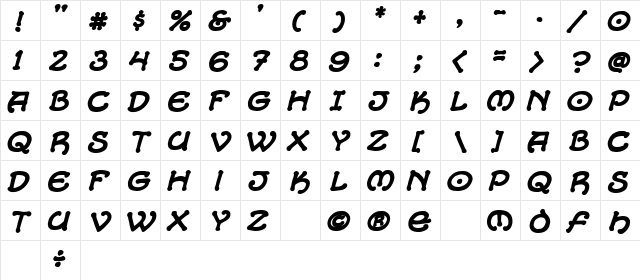
CCAlchemite BoldItalic Font Preview
CCAlchemite BoldItalic
CCAlchemite BoldItalic Font Details
Design Context for CCAlchemite Typeface
CCAlchemite is a composed and adaptable typeface that performs quietly and consistently across a wide range of design contexts. Its italic angle brings a sense of urgency and motion to the letterforms. The heavy weight commands attention and anchors typographic hierarchies.
Pro Tip: Use CCAlchemite for emphasis, pull quotes, and subheadings where its slanted energy can add rhythm to the layout.